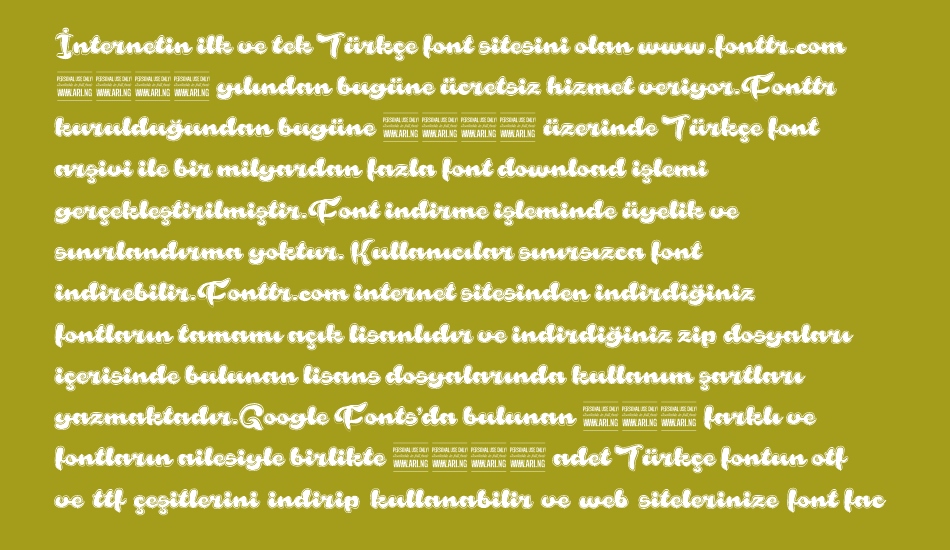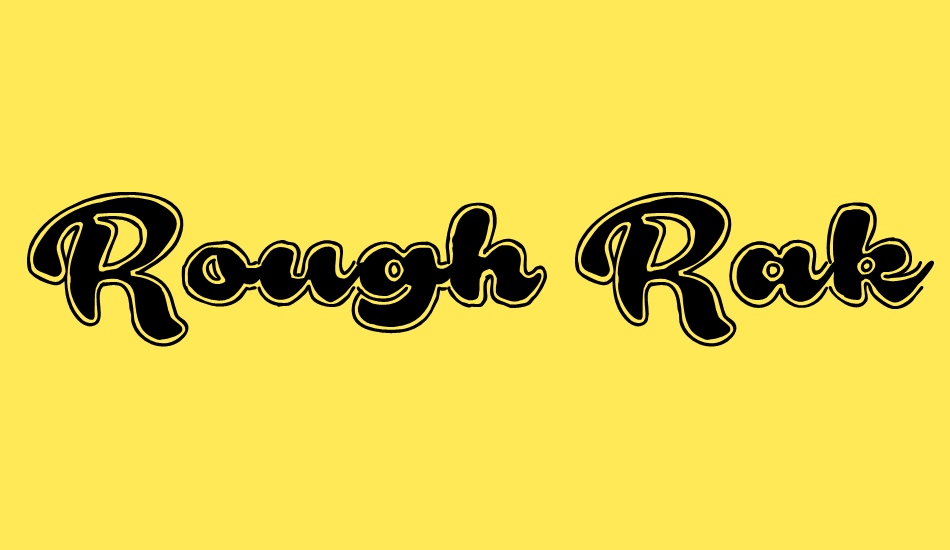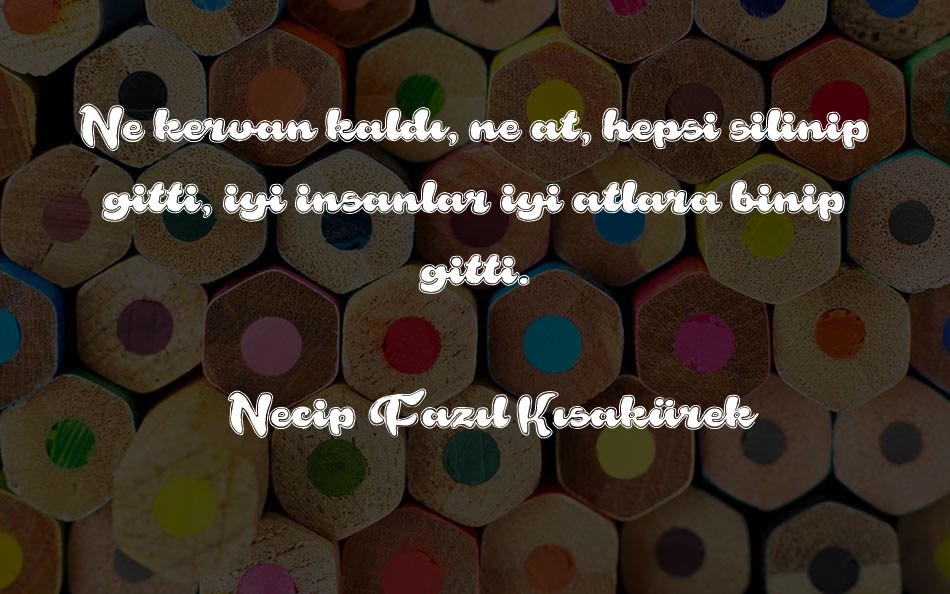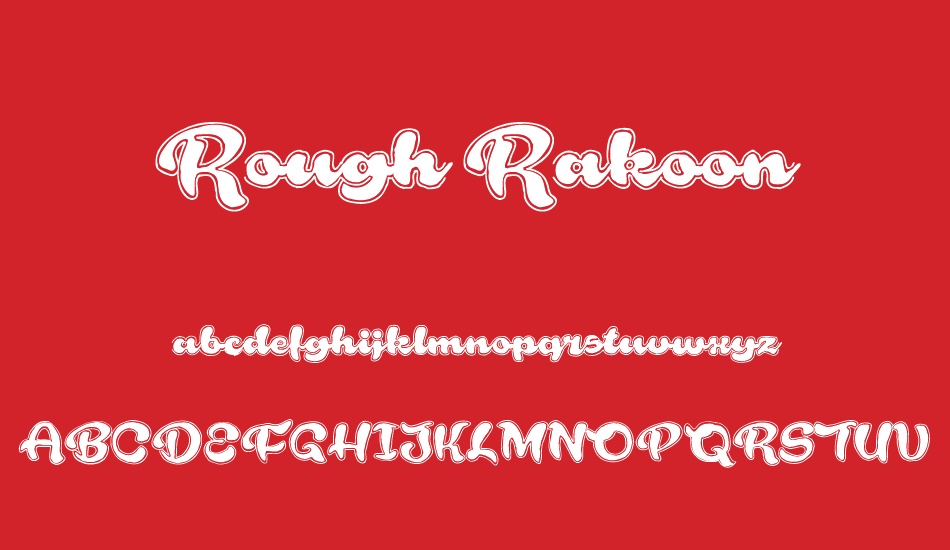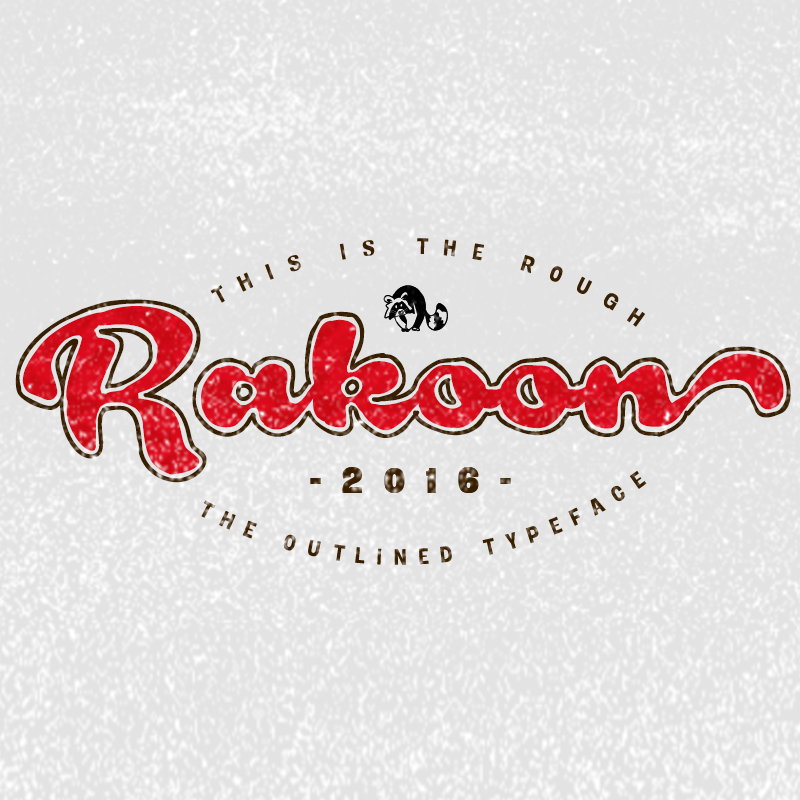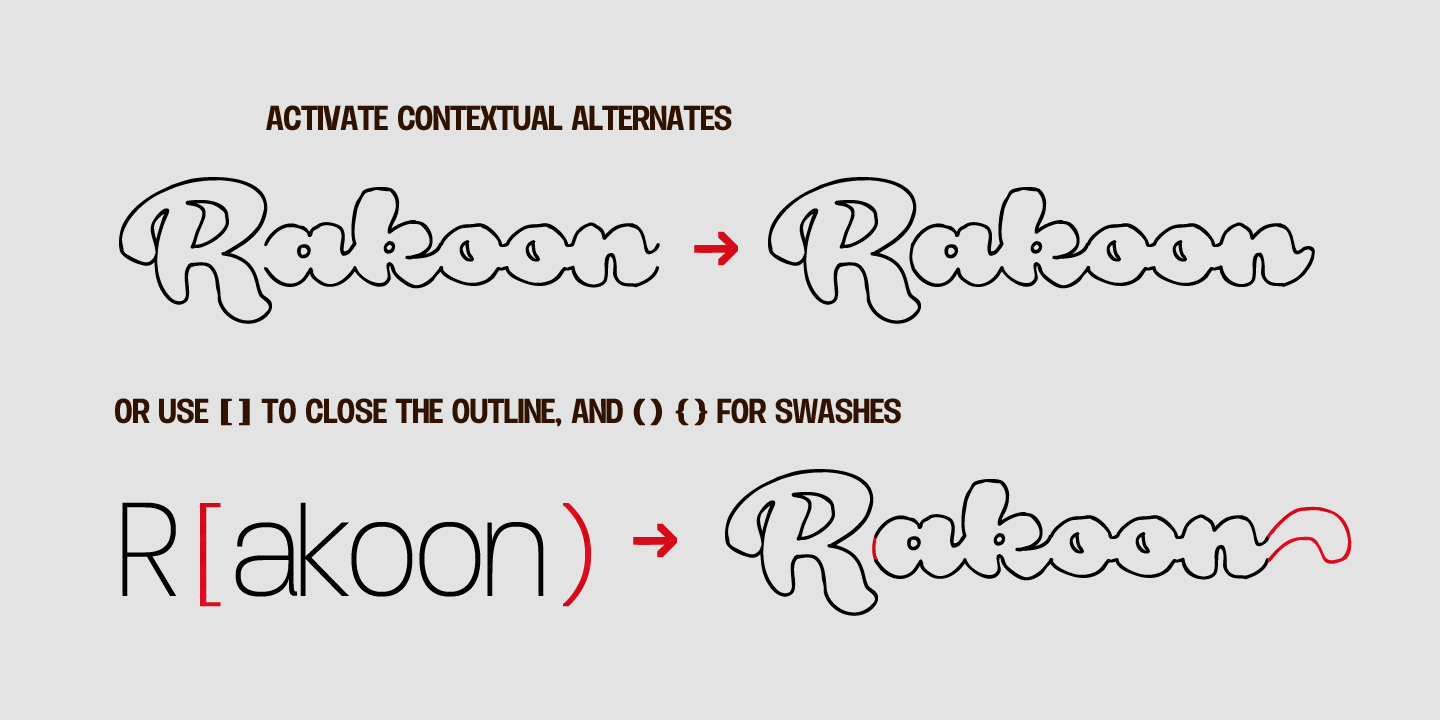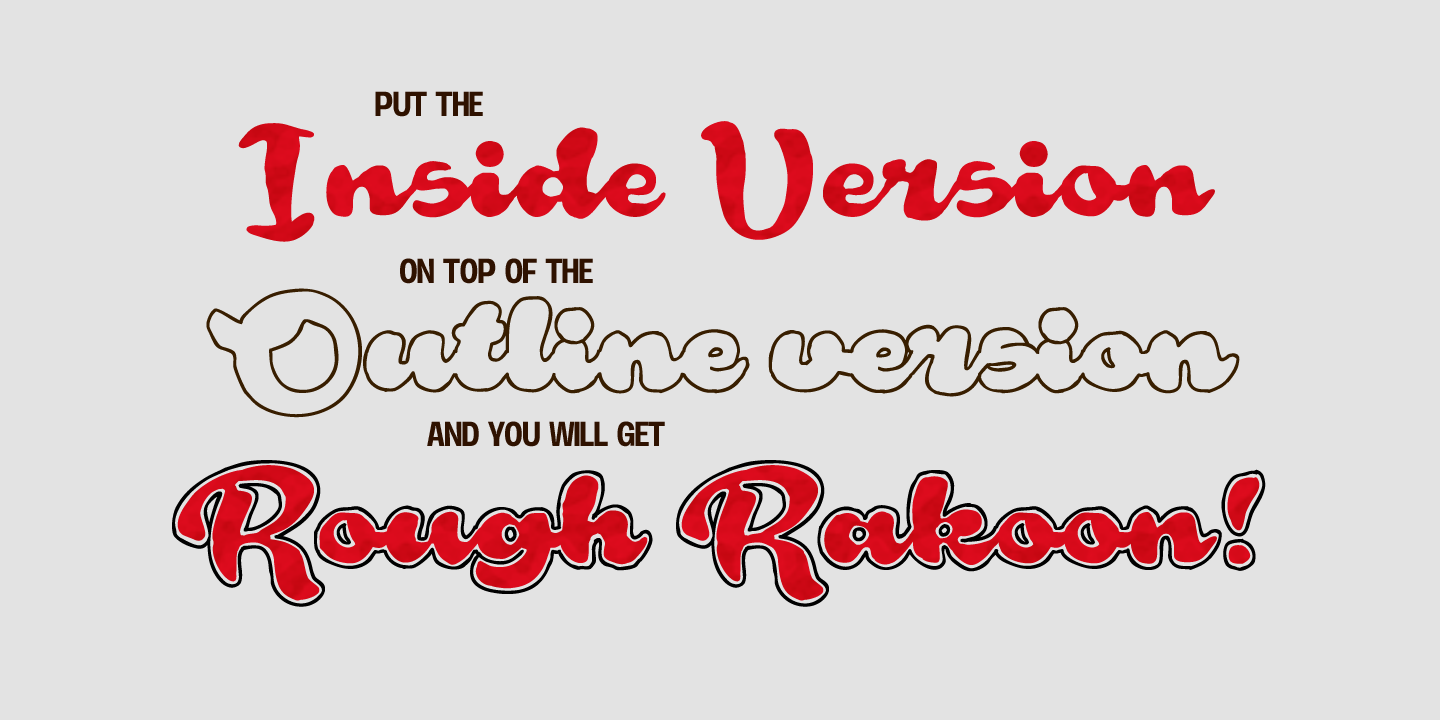
Rough Rakoon font
Rough Rakoon is a sketched typeface, based on the Rakoon font.
The font supports hundreds of languages.
It contains contextual alternates, swashes and ligatures.
This font works best with contextual alternates.
If your software does not support contextual alternates, you
can write [] around the word to make the outline connect.
Example: R[ough] [rakoon]
Or try () and {} for swashes!
Example: {cool} (swash)